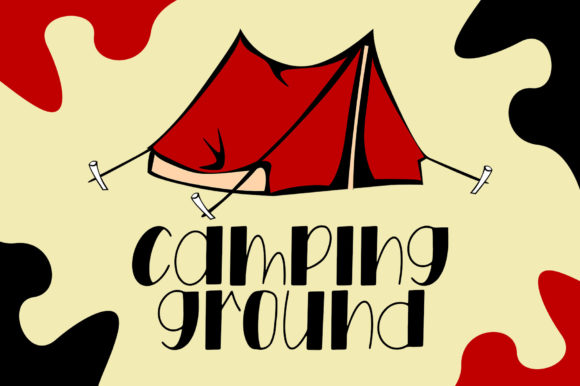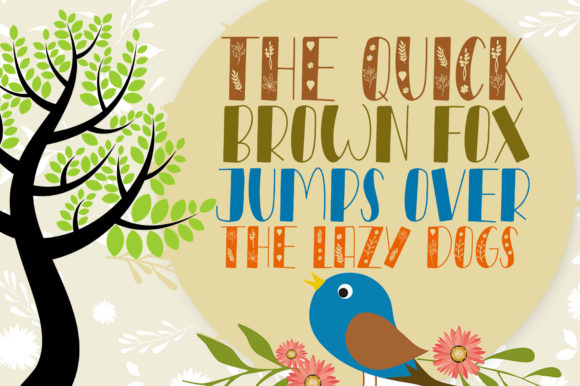
Introduction to Forest Glamor Font
Forest Glamor is a quirky and incredibly unique display font.
This enchanting font will turn any creative idea into a true standout Forest Glamor is PUA encoded which means you can access all of the glyphs and swashes with ease.